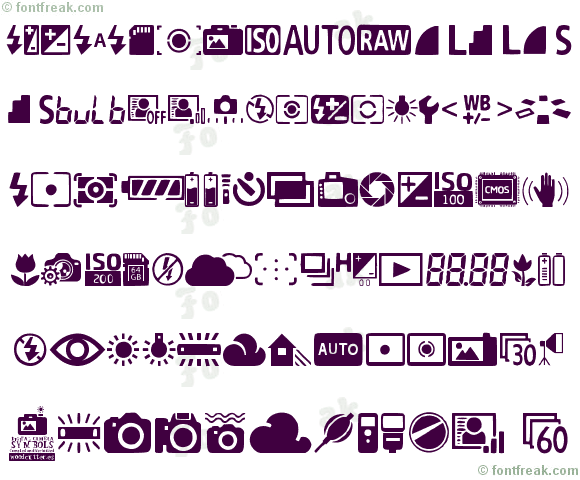
Digital Camera Symbols
About Digital Camera Symbols
The Digital Camera Symbols font by woodcutter Manero is a unique decorative typeface that caters specifically to the digital photography community. This font is classified as a dingbat typeface, featuring a collection of symbols and icons related to camera functions, settings, and photography gear. The visual characteristics of the Digital Camera Symbols font are striking, with bold, uniform stroke weights and a modern aesthetic. The symbols are designed with clear spacing, ensuring each icon is easily distinguishable, making this font an excellent choice for conveying photographic themes effectively.
This font shines in various applications, particularly in digital projects where visual communication is key. It's ideal for use in photography blogs, instructional guides, and social media graphics, where camera-related icons can enhance the content's appeal. Additionally, it can be utilized in marketing materials for photography workshops, or as embellishments in digital portfolios to showcase a photographer's work. Small business owners in the photography sector will find this font particularly useful for crafting engaging visuals that resonate with their target audience.
The Digital Camera Symbols font free download makes it accessible for graphic designers, content creators, and photography enthusiasts alike. Its playful yet professional design offers a fresh take on how photography can be represented visually. This font stands out due to its specialized focus on the digital photography niche, allowing users to effortlessly incorporate relevant symbols into their designs. By using this font, creators can enhance their projects with a cohesive and visually appealing set of icons that communicate their message clearly and creatively.